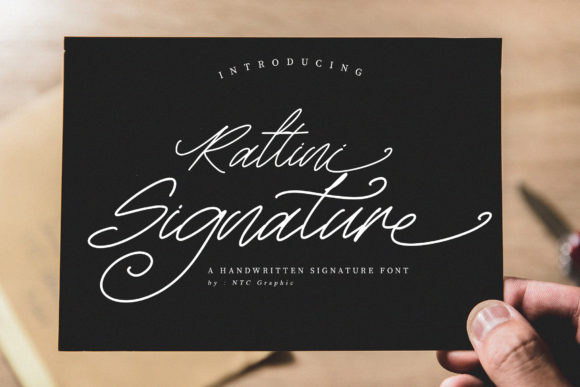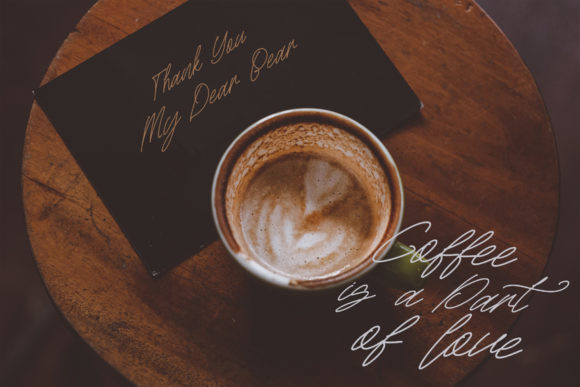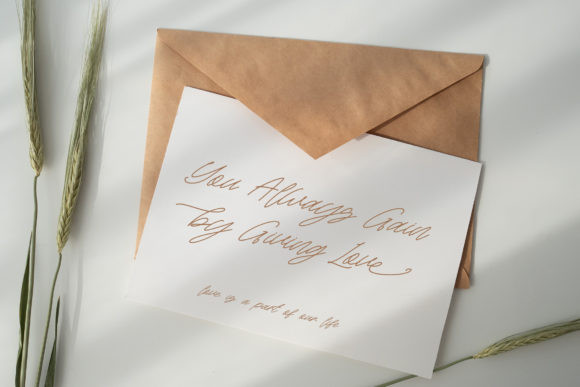
Rattini Signature Font
Rattini Signature is a gorgeous handwritten font. This stunning font is a stylish homage to classic calligraphy. It features a varying baseline, smooth lines, gorgeous glyphs and stunning alternates. Get inspired by its authentic feel and use it to create gorgeous wedding invitations, beautiful stationary art, eye-catching social media posts, and cute greeting cards.